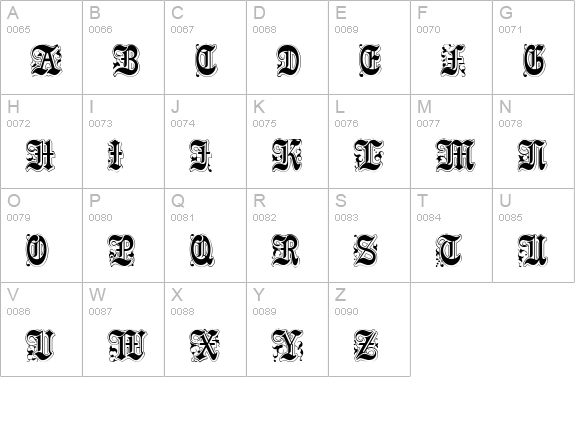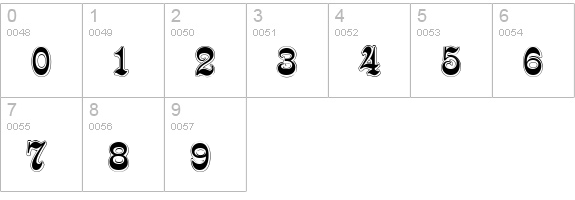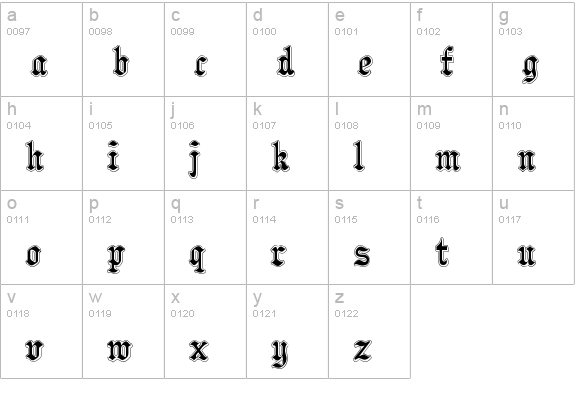
Pamela Font Details
Below you can preview Pamela in uppercase [A-Z], lowercase [a-z] and numbers [0-9]. You can also read the author's notes and license information before downloading.
Pamela font is a stunning typeface that combines elegance and versatility, making it perfect for a wide range of design projects. With its graceful curves and clean lines, this font exudes sophistication and professionalism. Whether you're designing a logo, creating a beautiful invitation, or crafting a stylish website, Pamela font will effortlessly elevate your project to the next level. One of the best things about Pamela font is that it is completely free. Yes, you read that right! This exceptional typeface is freely available to download at FontsMarket.com. Now you can enjoy the beauty and versatility of Pamela font without worrying about breaking the bank. Not only is Pamela font free, but it also offers a wide range of styles and options. From bold and impactful to sleek and minimalistic, this font has it all. With an extensive character set and various weights, you have the freedom to customize your designs and create something truly unique. But the benefits of Pamela font don't stop there. This font is also incredibly easy to work with, thanks to its well-crafted design and smooth curves. Whether you're a seasoned designer or just starting out, you'll find that Pamela font makes your creative process a breeze. So why wait? Download Pamela font for free at FontsMarket.com and add a touch of elegance and sophistication to your next design project. With its versatility, beauty, and ease of use, Pamela font is sure to become your go-to choice for all your typography needs.